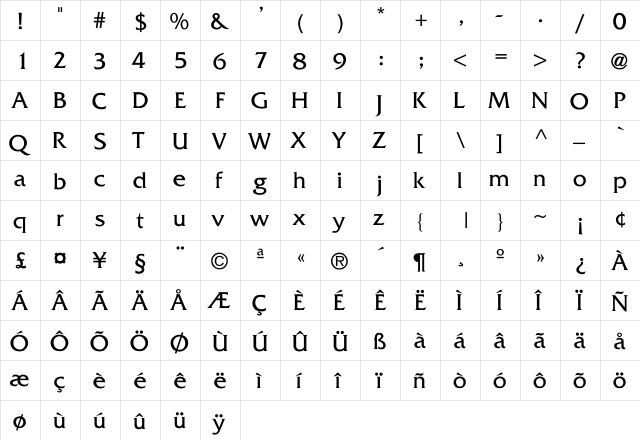
FritzQuadrata Regular
Design Context for FritzQuadrata Typeface
FritzQuadrata takes a measured approach to typography — its balanced proportions and neutral character make it a reliable workhorse for both digital and print work.